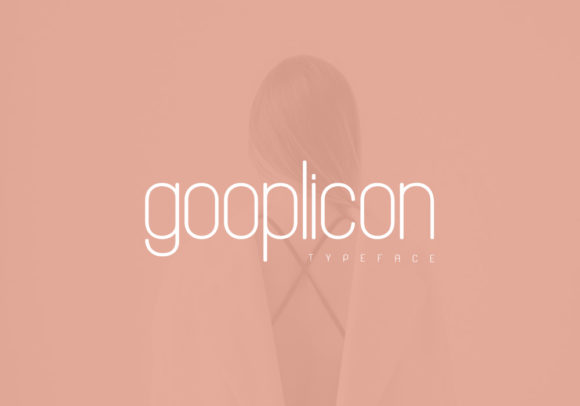
Attention all design enthusiasts and typography lovers! Meet Gooplicon, the sans serif font that will captivate your audience and elevate your designs to new heights. Crafted with meticulous care by the renowned font foundry BeeType, Gooplicon is a minimalist masterpiece that combines clarity with a touch of whimsy, making it the perfect choice for a wide range of creative endeavors.
With its clean lines and generous proportions, Gooplicon exudes sophistication and legibility, ensuring that your message will be conveyed with impact and style. Whether you're creating eye-catching display boards, captivating marketing materials, or sleek website designs, Gooplicon will effortlessly enhance the visual appeal of your projects.
Step into a world of endless creative possibilities with Gooplicon. Its versatility extends to a multitude of design applications, allowing you to effortlessly elevate everything from branding and packaging to editorial design and social media graphics. The possibilities are as boundless as your imagination.
Embrace the power of Gooplicon and watch your designs transform before your very eyes. Its timeless charm and undeniable appeal will turn heads and leave a lasting impression on your audience. Join the ranks of discerning designers who have already discovered the magic of Gooplicon. Let its elegant simplicity and understated beauty empower your creative vision today!